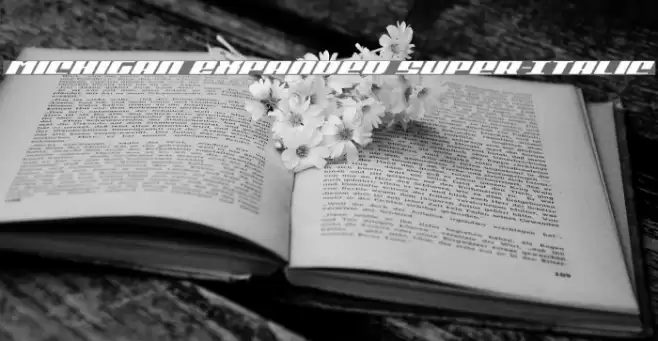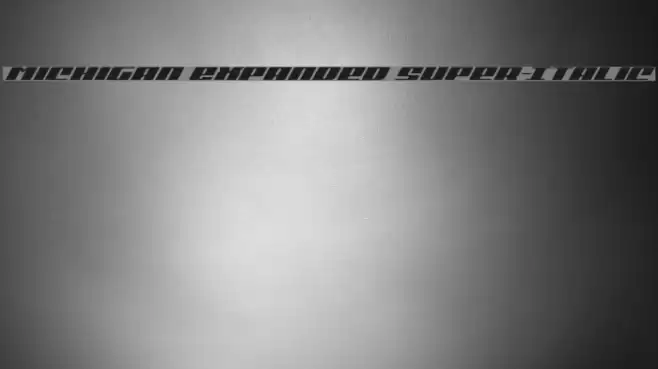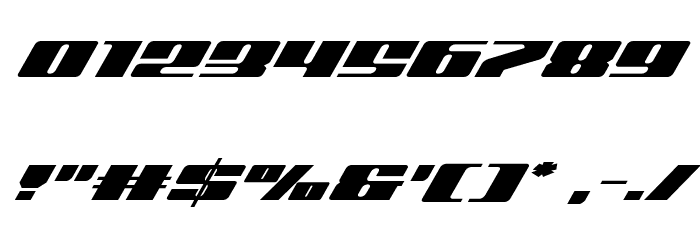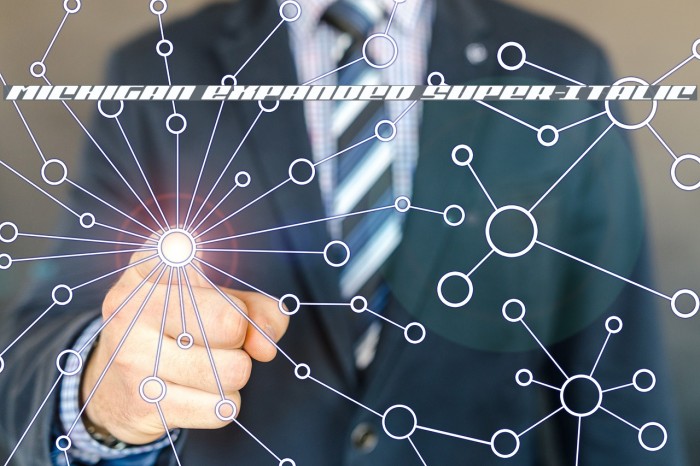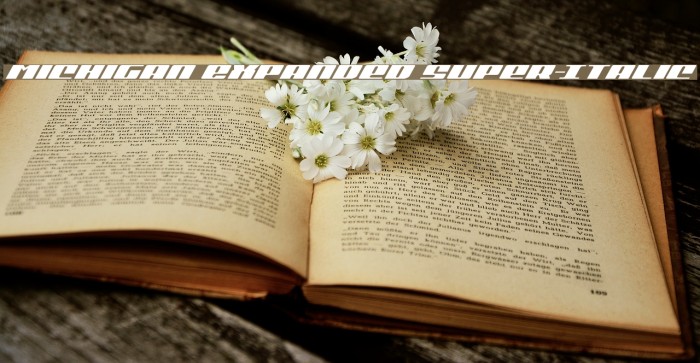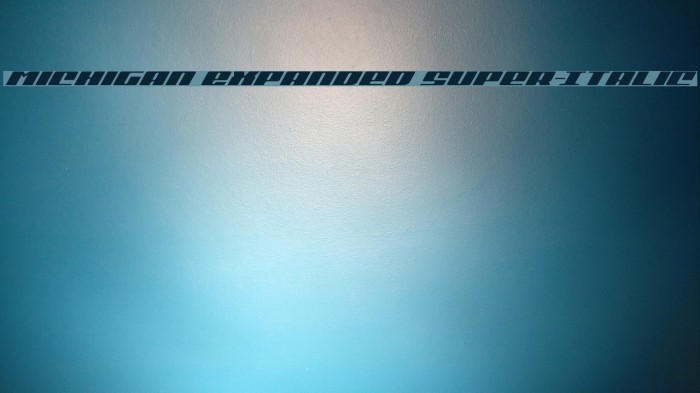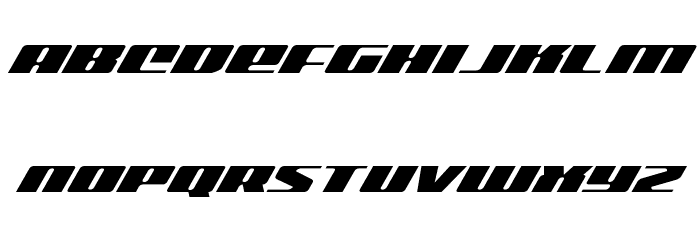
Michigan Expanded Super-Italic Font
Michigan Expanded Super-Italic Description
This font features a bold, italicized style with a distinctly modern and dynamic appearance. The characters are expanded, giving them a wide stance that enhances their presence on the page. The angular design and sharp edges contribute to a futuristic and sporty aesthetic, making it ideal for projects that require a strong visual impact. The uppercase and lowercase letters maintain a consistent style, with a slight slant that adds to the italic effect. The numerals and special characters are designed to match the boldness and angularity of the alphabet, ensuring a cohesive look across all text elements.
A bold, expanded, and italicized font with a modern, dynamic style from Uncategorized fonts.
- Proposed Projects: Ideal for sports branding, automotive designs, posters, and dynamic headlines.